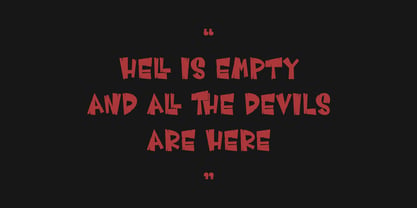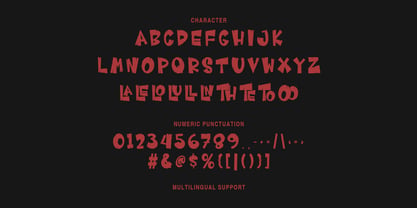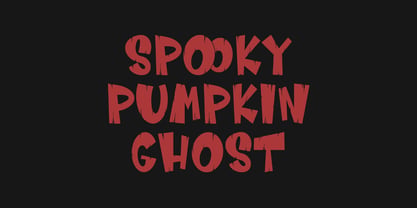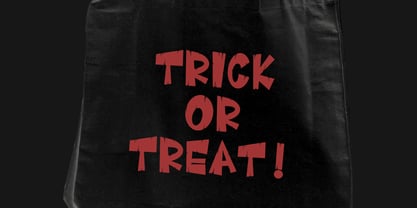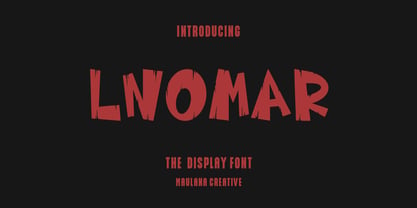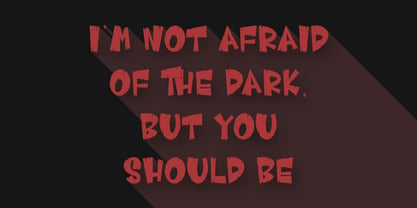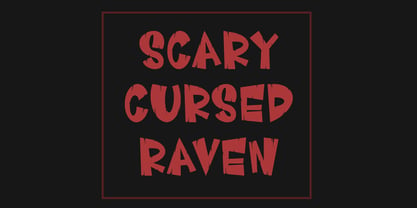
MC Lnomar
by Maulana Creative
The MC Lnomar Font Family was designed by Gilang Maulana and published by Maulana Creative. MC Lnomar contains 1 styles. More about this family
Discover Lnomar, a distinctive display font designed to evoke a chilling, spooky atmosphere. Ideal for Halloween, horror themes, or any project that requires an eerie charm, Lnomar features a rough, hand-carved appearance with uneven edges, perfectly capturing the essence of haunted houses and scary tales. This font includes a complete set of uppercase characters, numbers, and punctuation, providing all the elements necessary to craft your next spine-tingling masterpiece. Whether for branding, web design, or editorial projects, Lnomar adds a unique touch that stands out in any context.
Designers: Gilang Maulana
Foundry: Maulana Creative